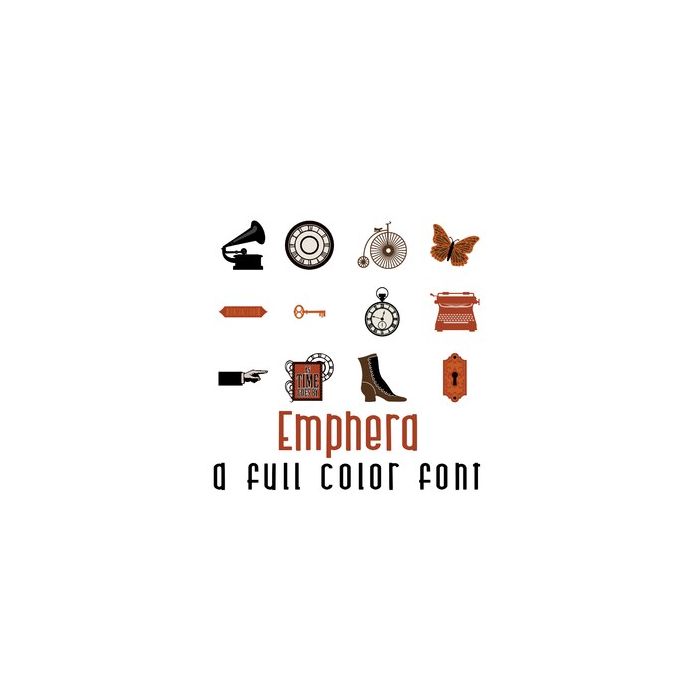
This adorable full-color doodlebat font features 36 vintage style items. Perfect for cards, crafts, gifts, decor, scrapbook pages, planner stickers, and more!
Glyphs are A-Z and 0-9 0-9 are clocks with specific times